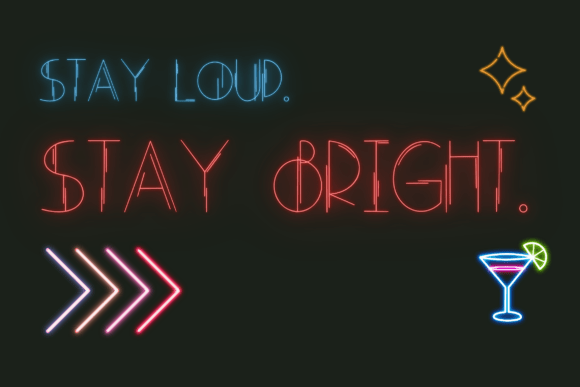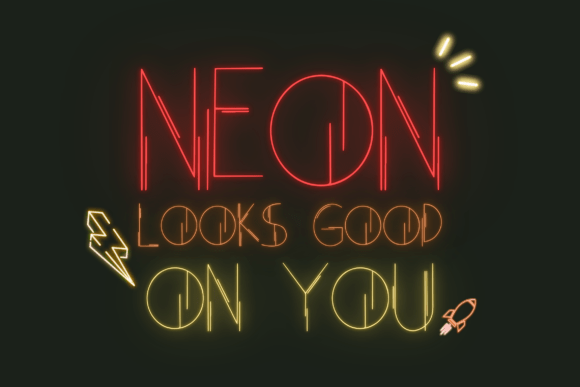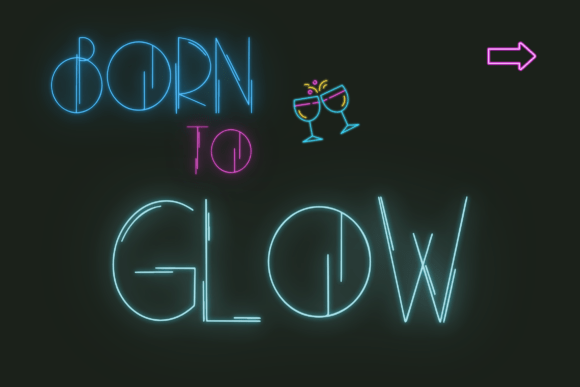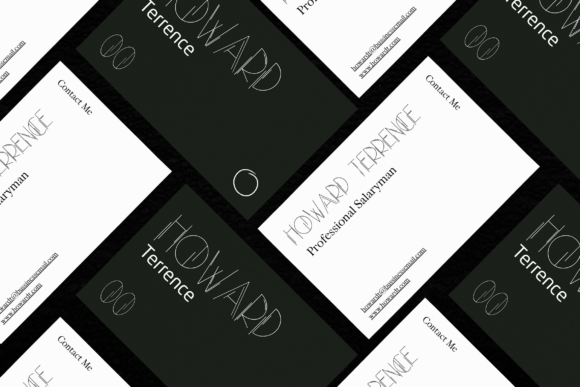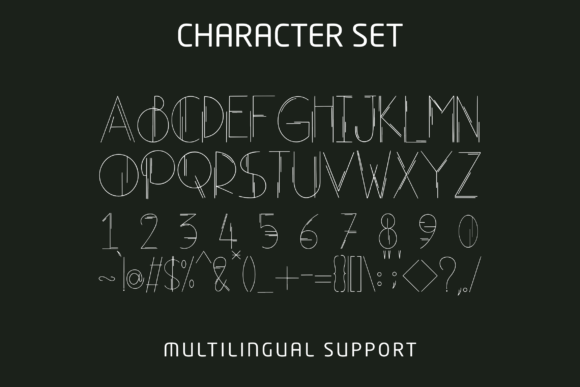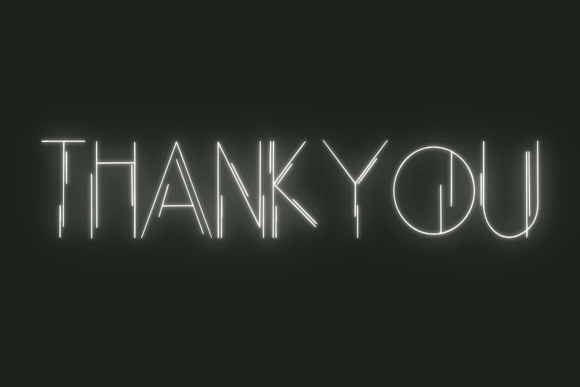
Introduction to Neonrift Font
Remember that moment when you’re brainstorming ideas for a new design project, and you just can’t seem to find the right font to give it that extra oomph? You’ve searched high and low, scrolled through countless design resources, and still, nothing seems to capture the essence of your creative vision. Well, put down your search bar, because we’ve got just the thing for you – the Neonrift Font.
This bold display font is designed to grab attention, with its sharp, electric vibe and confident presence. It’s perfect for designs that need to stand out, from nightlife branding and music posters to gaming headers and tech promos. And the best part? Neonrift Font remains readable even at smaller sizes, thanks to its balanced and open letterforms. Whether you’re working on a free download or a high-quality design project, this font is sure to shine on a transparent background, making your designs look futuristic and ready for the spotlight.
Key Features of Neonrift Font
- High-quality design resource ideal for creative projects requiring a futuristic and neon aesthetic.
- Unique characteristics include a bold, neon-inspired design with intricate details and a vibrant color scheme.
- Perfect for use in graphic design, digital art, and other creative projects that require a modern and eye-catching look.
Honest Review: Neonrift Font
I recently stumbled upon the Neonrift Font, and I must say it’s a great addition to any designer’s toolkit. As a design resource, it offers a unique blend of futuristic and neon-inspired elements that are perfect for creative projects.
The font is available for free download, which is a huge plus in my book. The transparent background makes it easy to integrate into any design without worrying about unnecessary clutter. The high-quality design ensures that it looks crisp and clear, even at larger sizes.
What works well about the Neonrift Font is its versatility. It can be used for a wide range of applications, from logos and branding to graphics and digital art. The font’s modern aesthetic makes it perfect for cutting-edge designs that need a touch of sophistication.
- ✨ Unique blend of futuristic and neon-inspired elements
- ✨ High-quality design that looks crisp and clear
- ✨ Transparent background for easy integration
- ✨ Versatile and suitable for a wide range of applications
However, there are a few limitations to consider. The font may not be suitable for more traditional or conservative designs, and some users may find the neon elements overpowering. Additionally, the font may require some tweaking to achieve the desired level of contrast.
Overall, I’m impressed with the Neonrift Font. While it may not be perfect for every design project, it’s a great resource to have in your toolkit. With its unique blend of futuristic and neon-inspired elements, it’s sure to add a touch of creativity to any design.
To get the most out of the Neonrift Font, experiment with different font sizes, colors, and combinations to achieve the desired effect. You can also use it in conjunction with other design elements to create a unique and eye-catching visual identity.
The Neonrift Font is ideal for:
- Graphic design projects
What is the recommended usage for the Neonrift Font?
The Neonrift Font is a versatile design resource that can be used in a variety of creative projects, including logos, branding, packaging, and more. It’s perfect for designers who want to add a touch of modernity and sophistication to their designs. The font’s high-quality graphics and unique design make it a great choice for designers who want to stand out from the crowd.